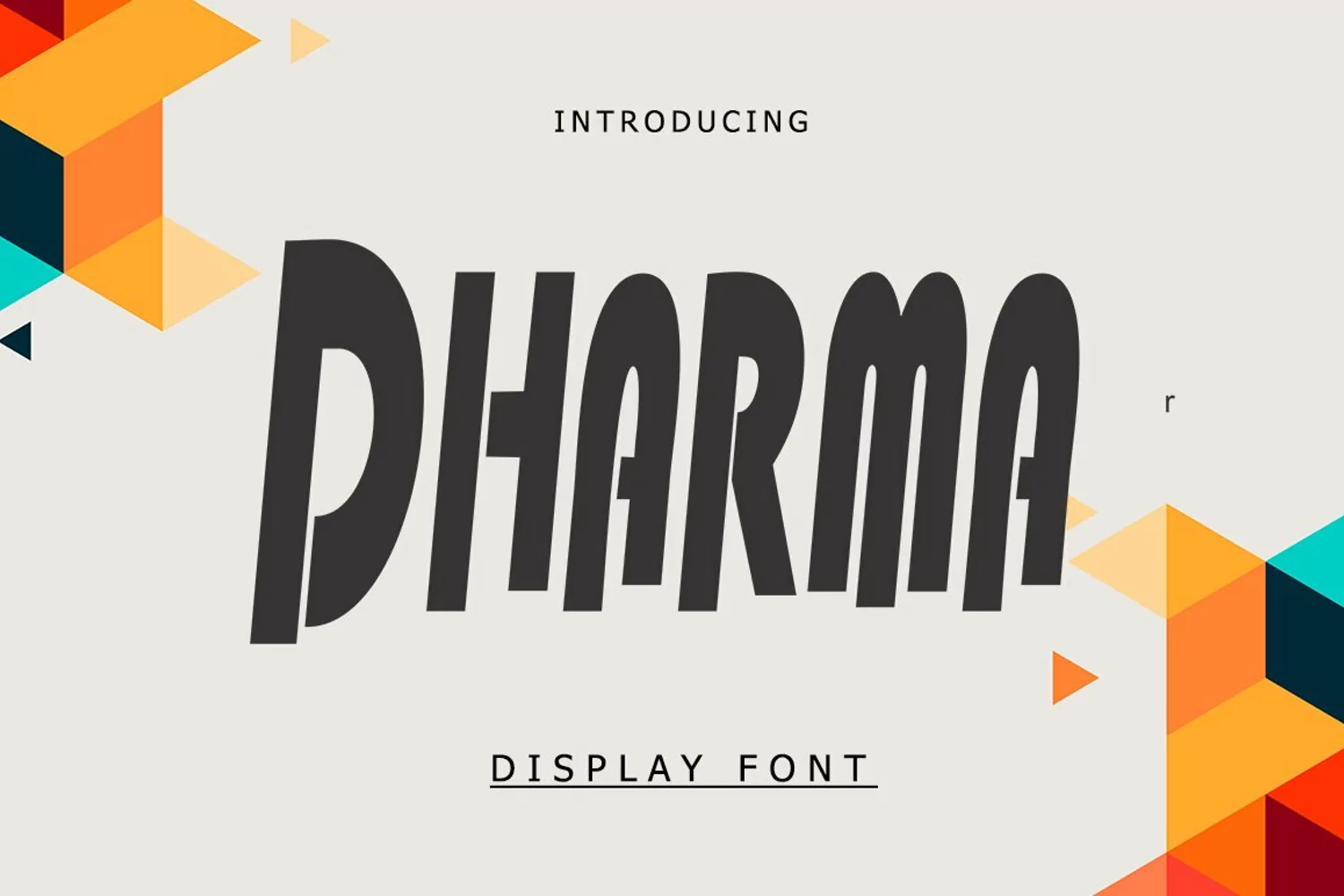
Dharma is a bold display font. Easily make a statement with all your designs and projects when you use Dharma font. Created by the artist because of a love for hand lettering, this bold font is great for headlines, logos, posters and much more.